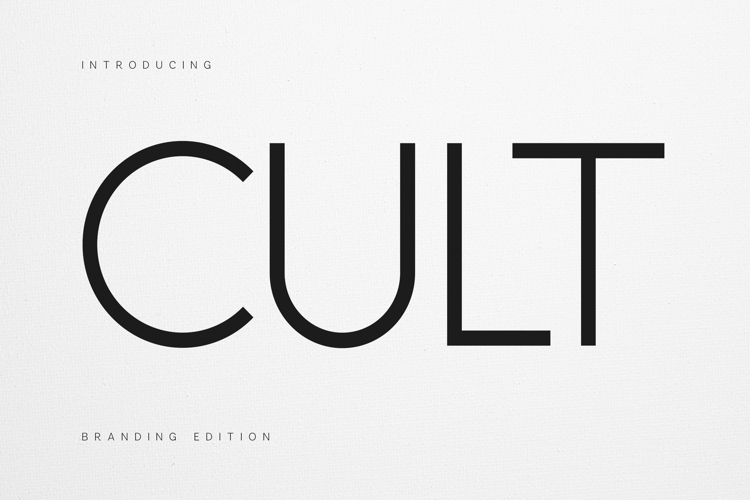
Cult Branding Font Minimal Modern Sans
Cult Branding is a refined geometric sans serif designed for contemporary identity systems.
Built with clean proportions, precise curves, and confident vertical structure, Cult Branding delivers clarity with personality. Its modern construction makes it ideal for luxury branding, fashion editorials, architecture studios, and forward-thinking design projects.
This typeface balances minimalism with presence — strong enough for headlines, elegant enough for refined brand systems.
• Luxury branding
• Fashion & editorial layouts
• Logo design
• Architecture studios
• Creative agencies
• Packaging design
• Modern websites
• Social media campaigns
• Clean kerning & spacing
Cult Branding is made for designers building bold, modern identities.